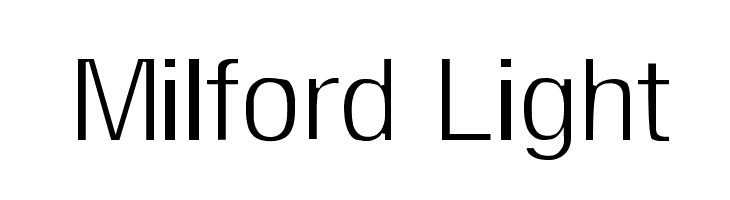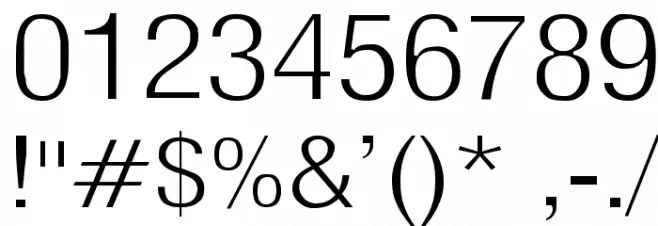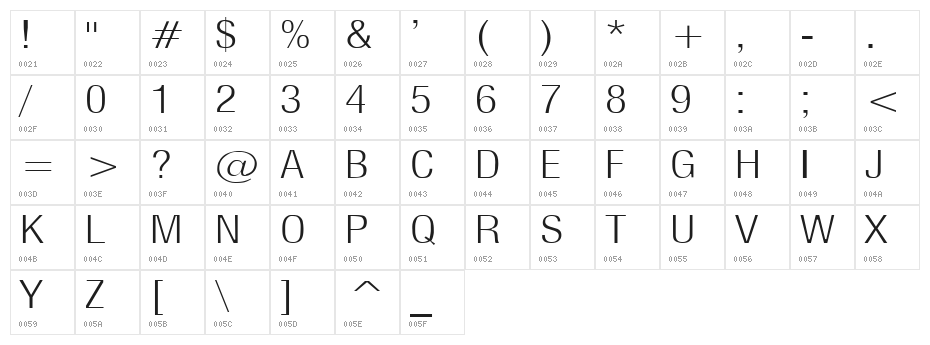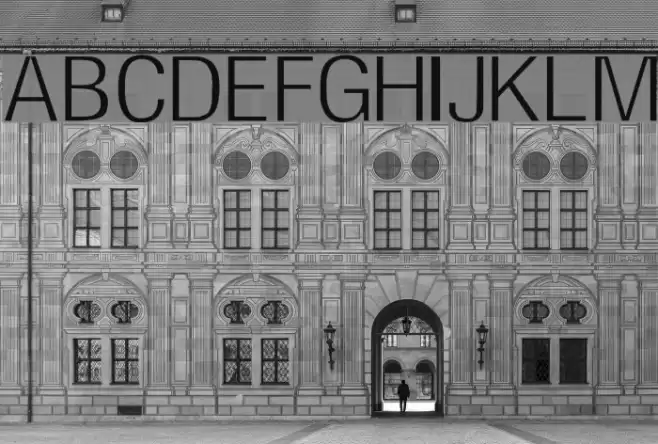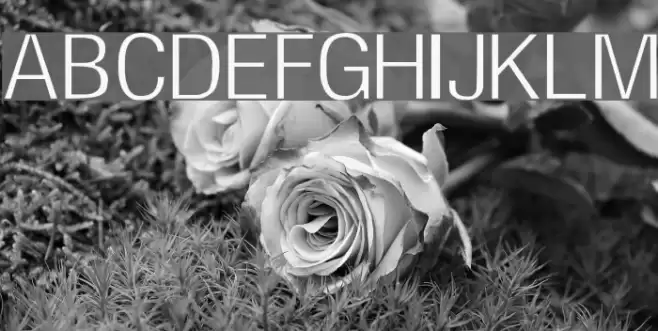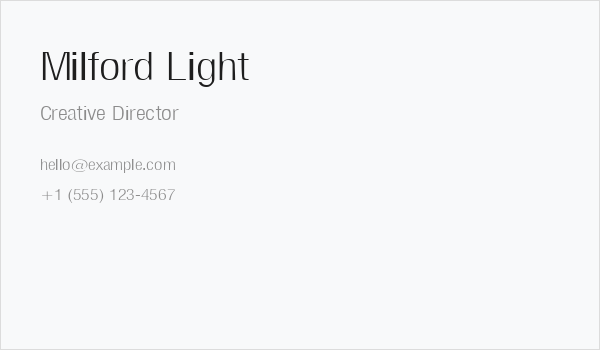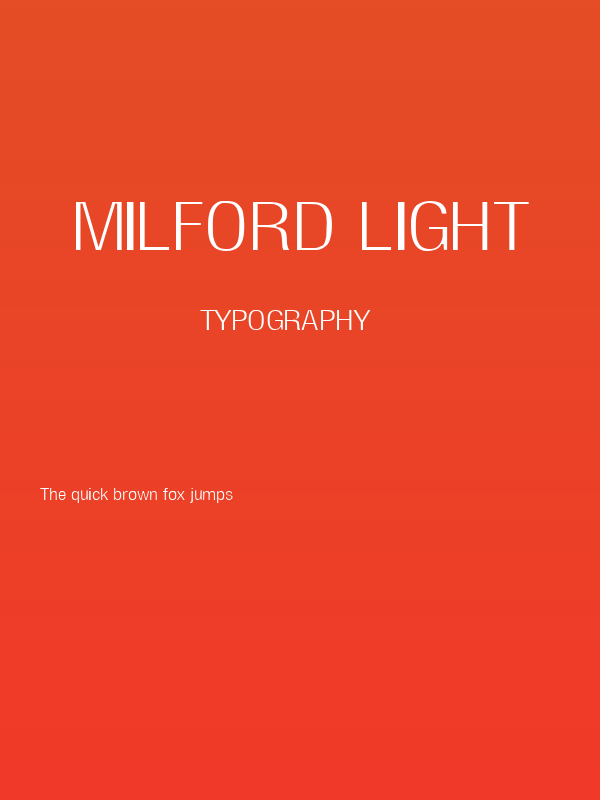
Milford Light Font
Milford Light Description
This font exhibits a clean and modern sans-serif style, characterized by its light weight and minimalistic design. The characters are well-proportioned with a consistent stroke width, contributing to a sleek and professional appearance. The uppercase letters are tall and commanding, while the lowercase letters maintain a harmonious balance, ensuring readability. The numerals are straightforward, aligning seamlessly with the overall aesthetic. Special characters are crafted with precision, adding to the font's versatility. The spacing between characters is normal, allowing for clear legibility in various text sizes.